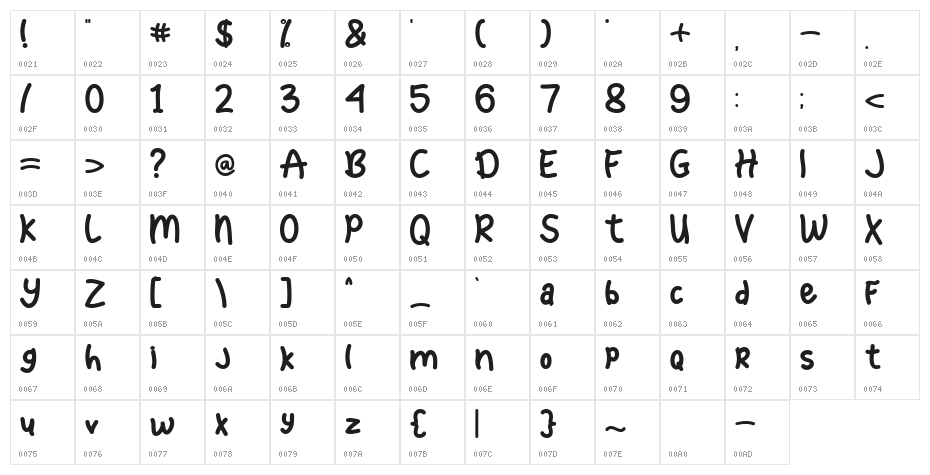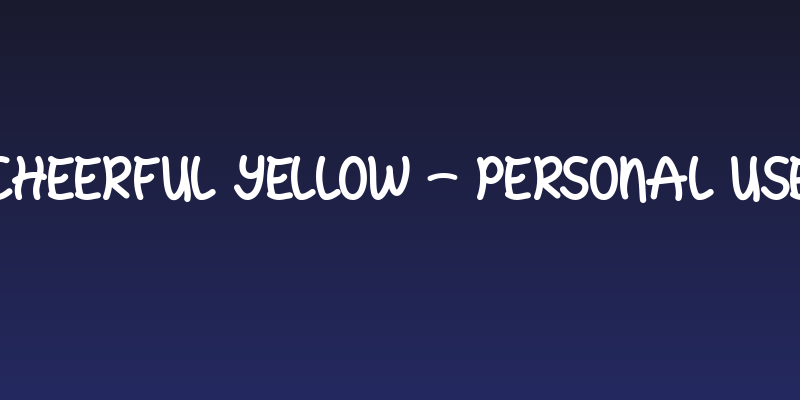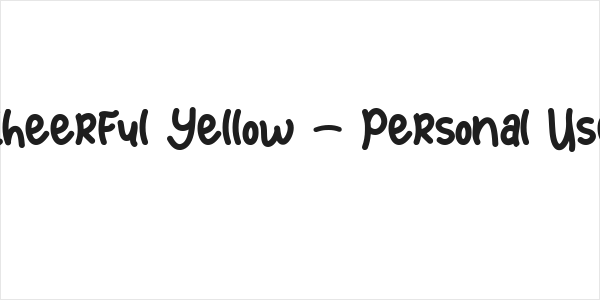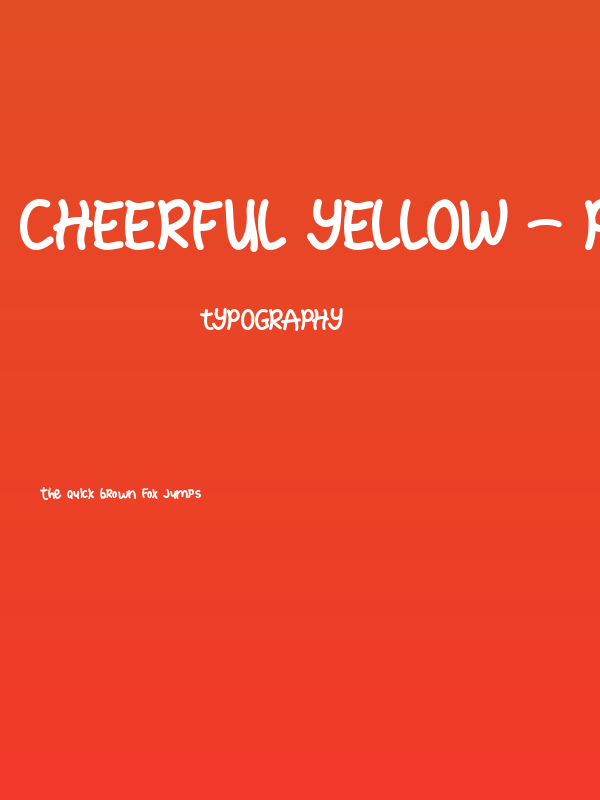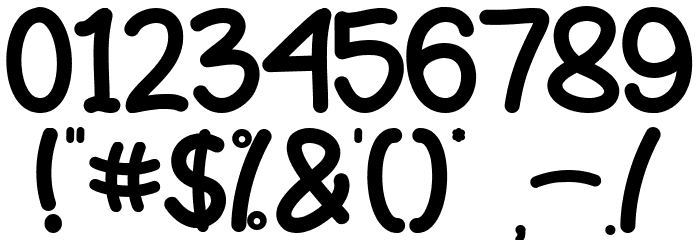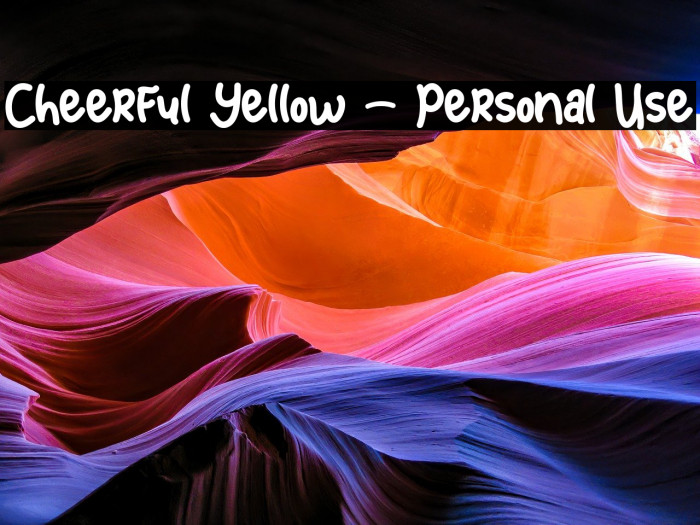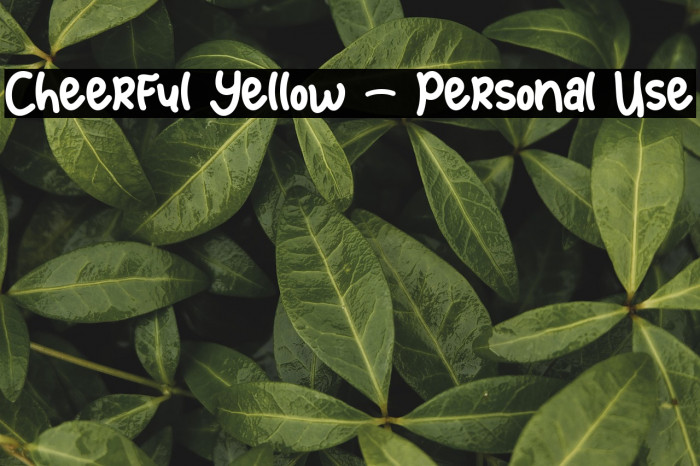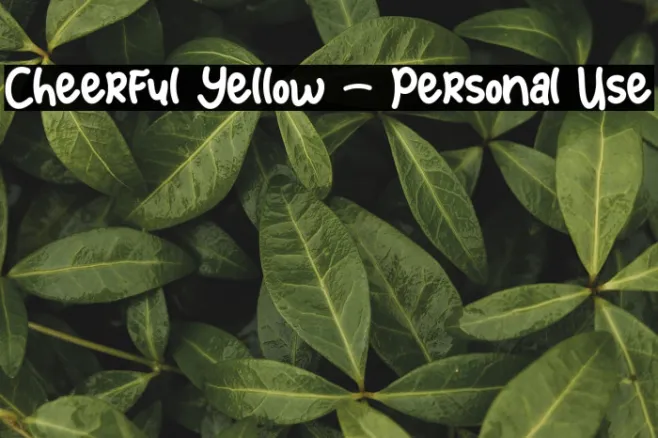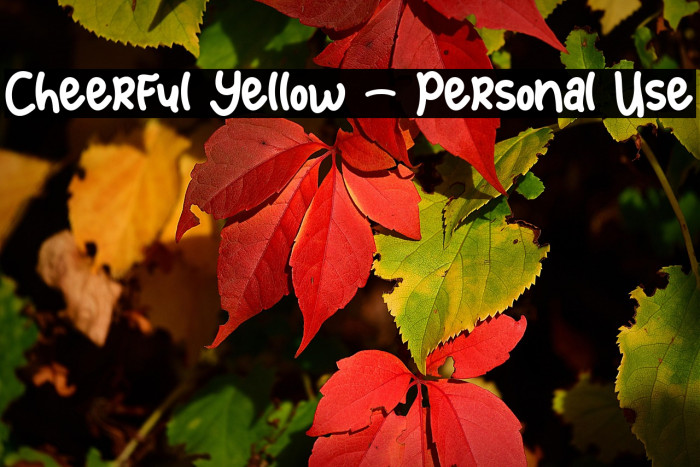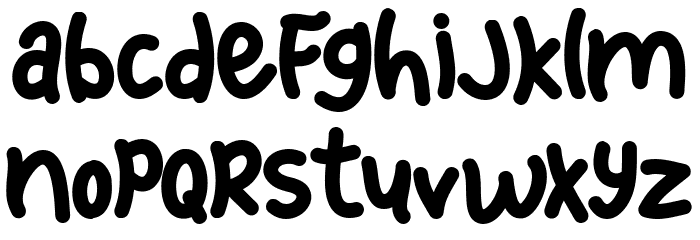
Cheerful Yellow - Personal Use Font
Cheerful Yellow - Personal Use Description
This font exudes a playful and energetic vibe with its bold, rounded characters. The letters have a hand-drawn appearance, giving them a casual and friendly feel. The strokes are consistent in thickness, contributing to a uniform look across all characters. The uppercase and lowercase letters maintain a similar style, with slight variations that add to the font's charm. Numbers and special characters are equally bold and expressive, making them stand out. This font is ideal for projects that require a fun and approachable aesthetic.
| Proposed Projects | Perfect for children's books, playful branding, greeting cards, and casual posters. |